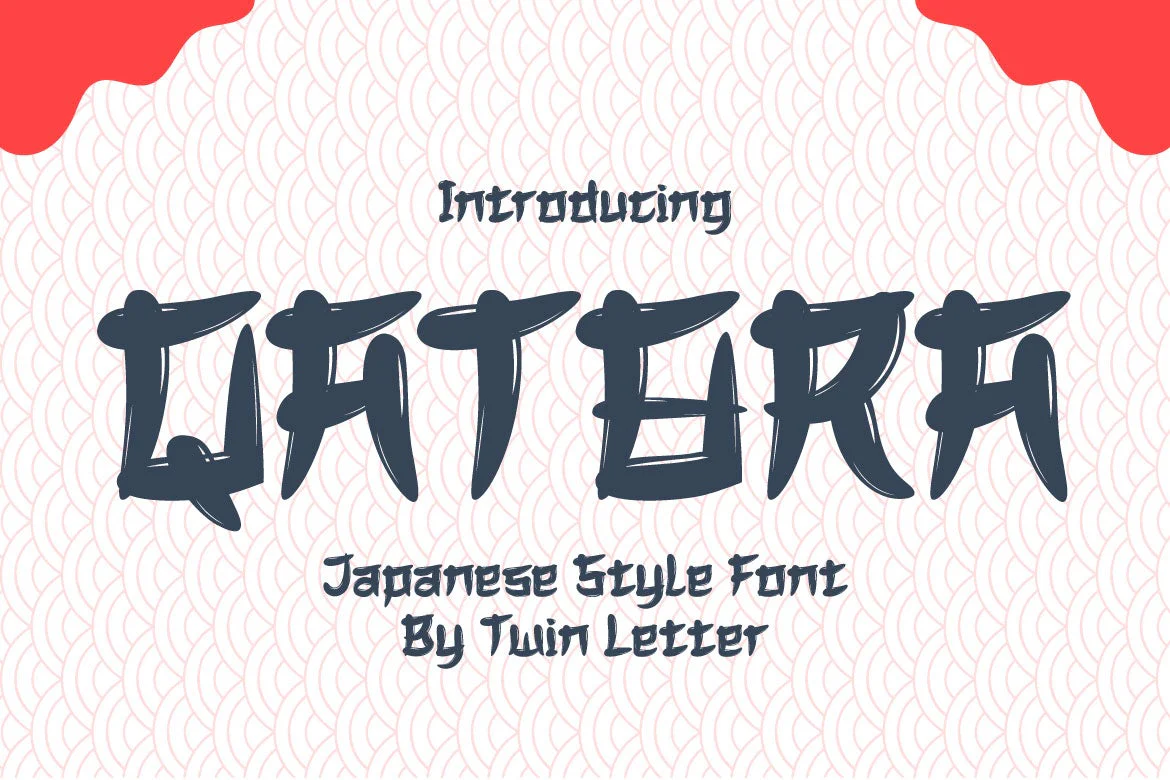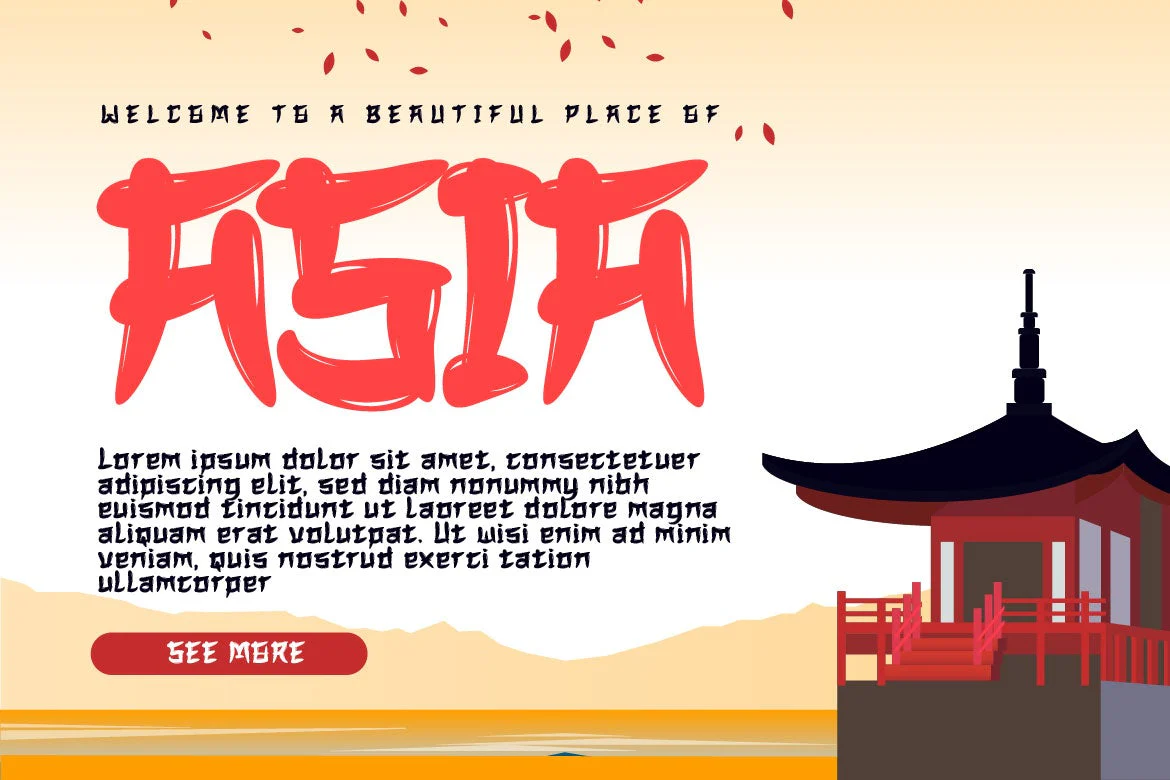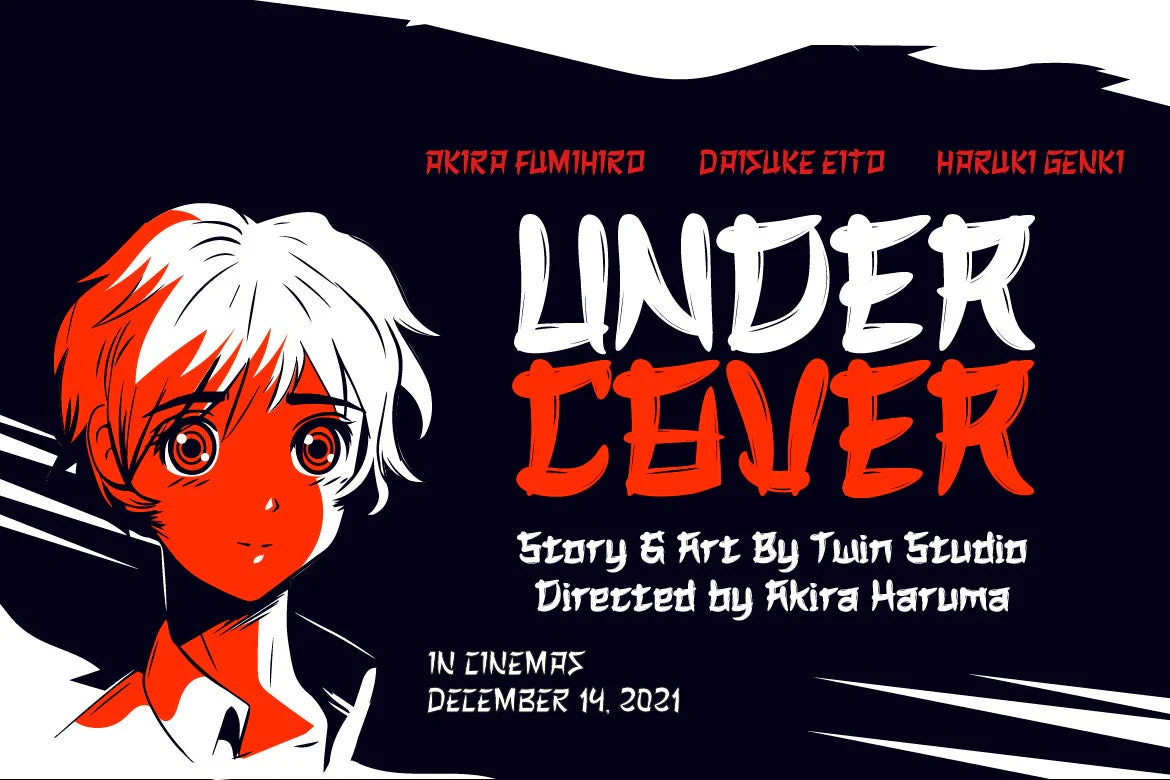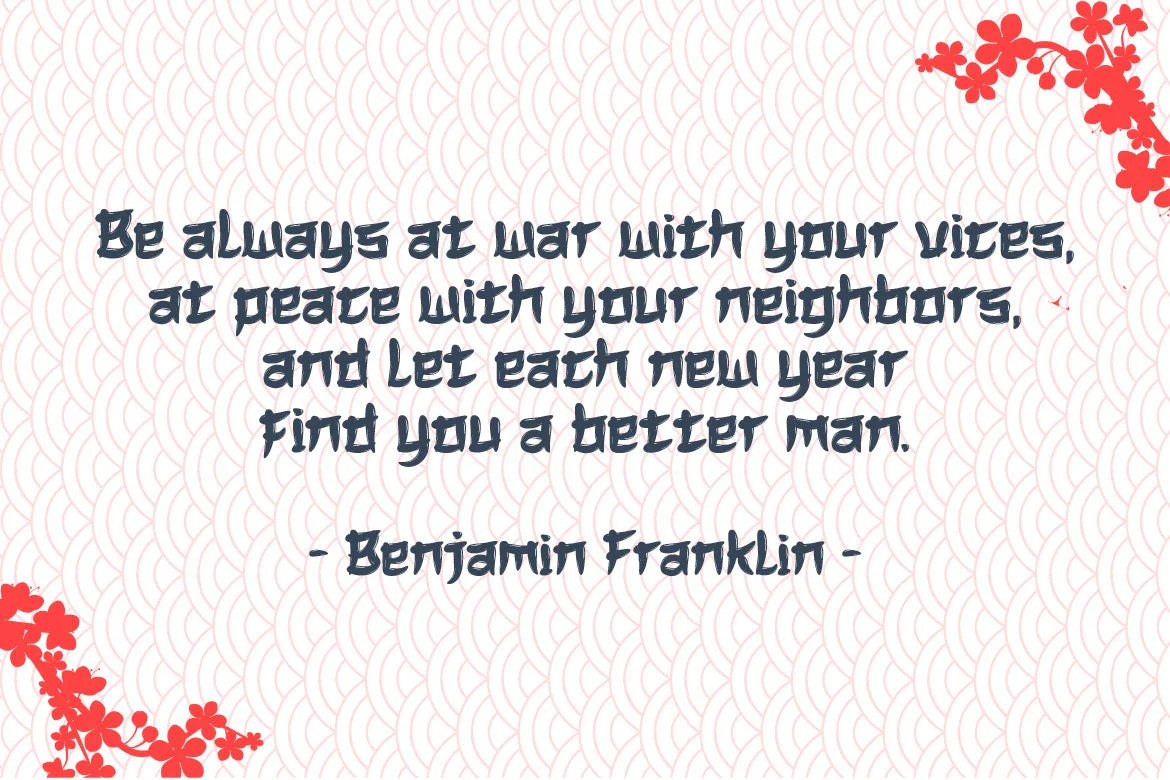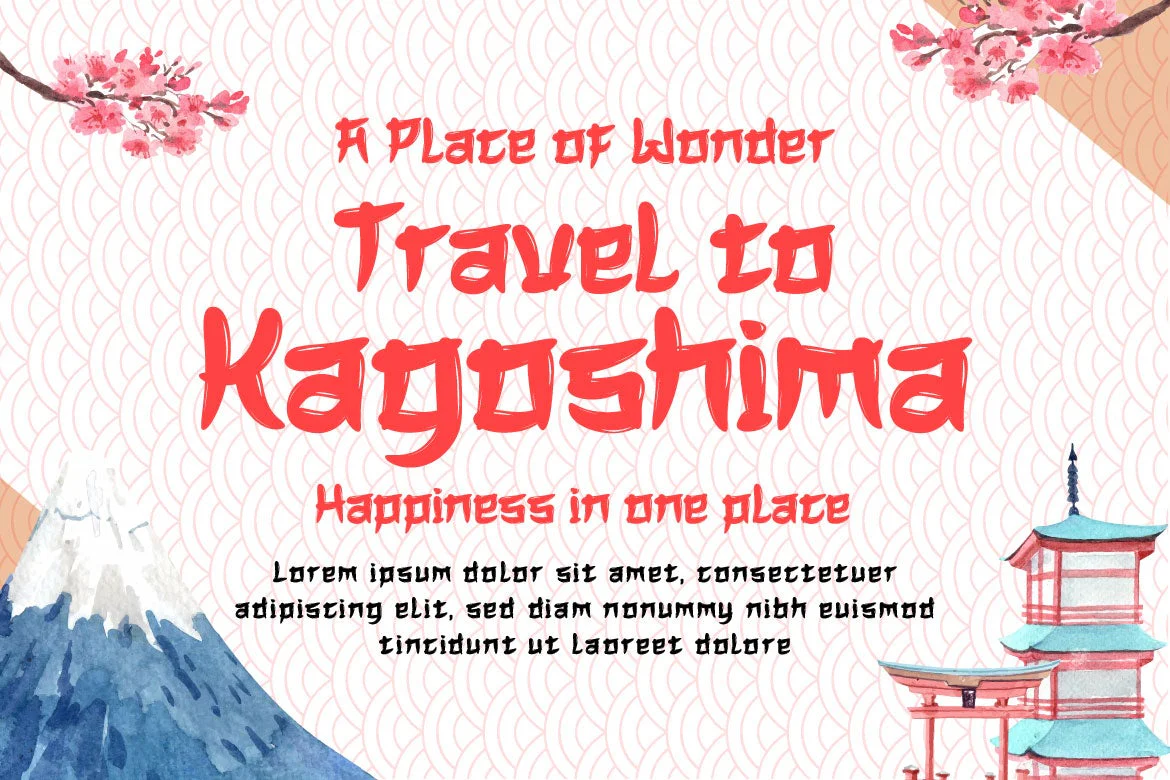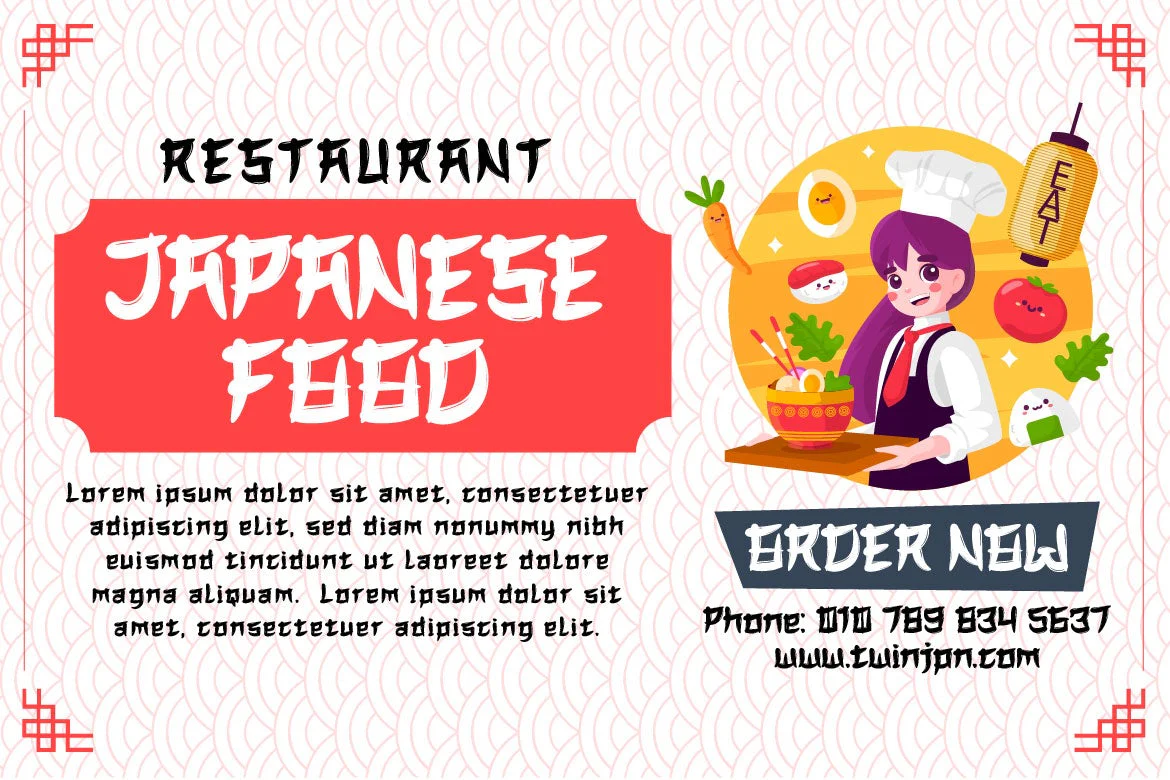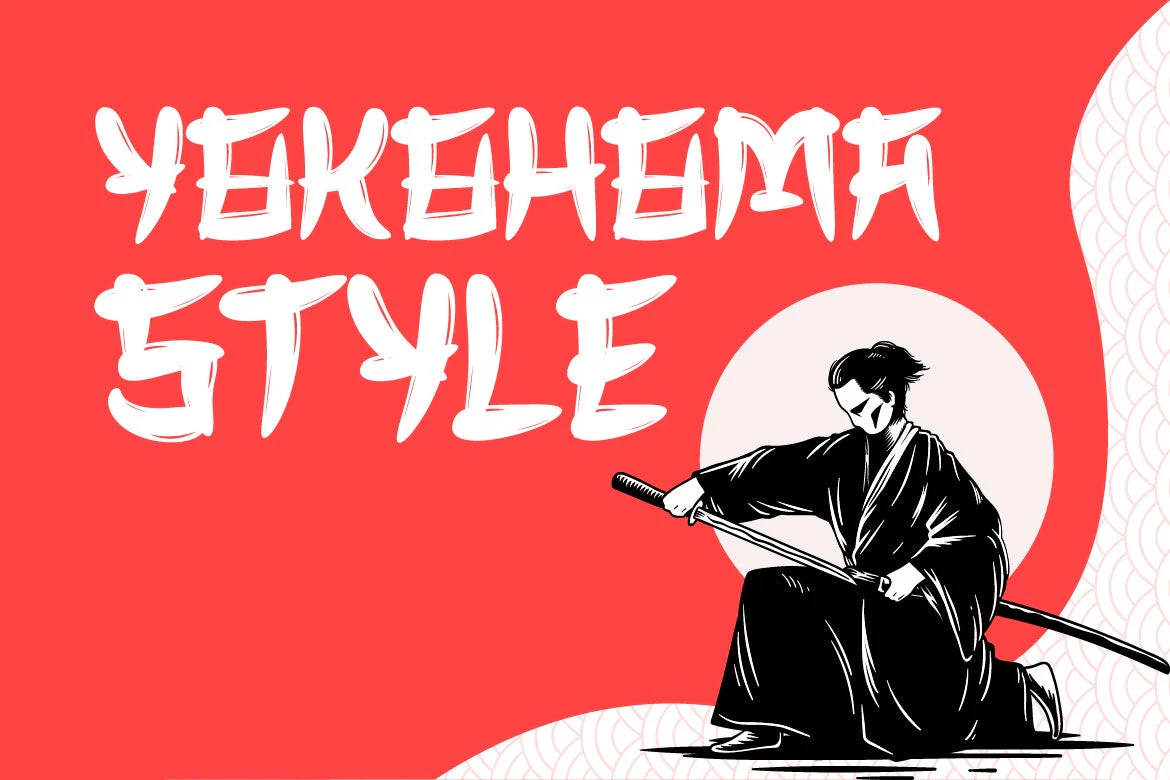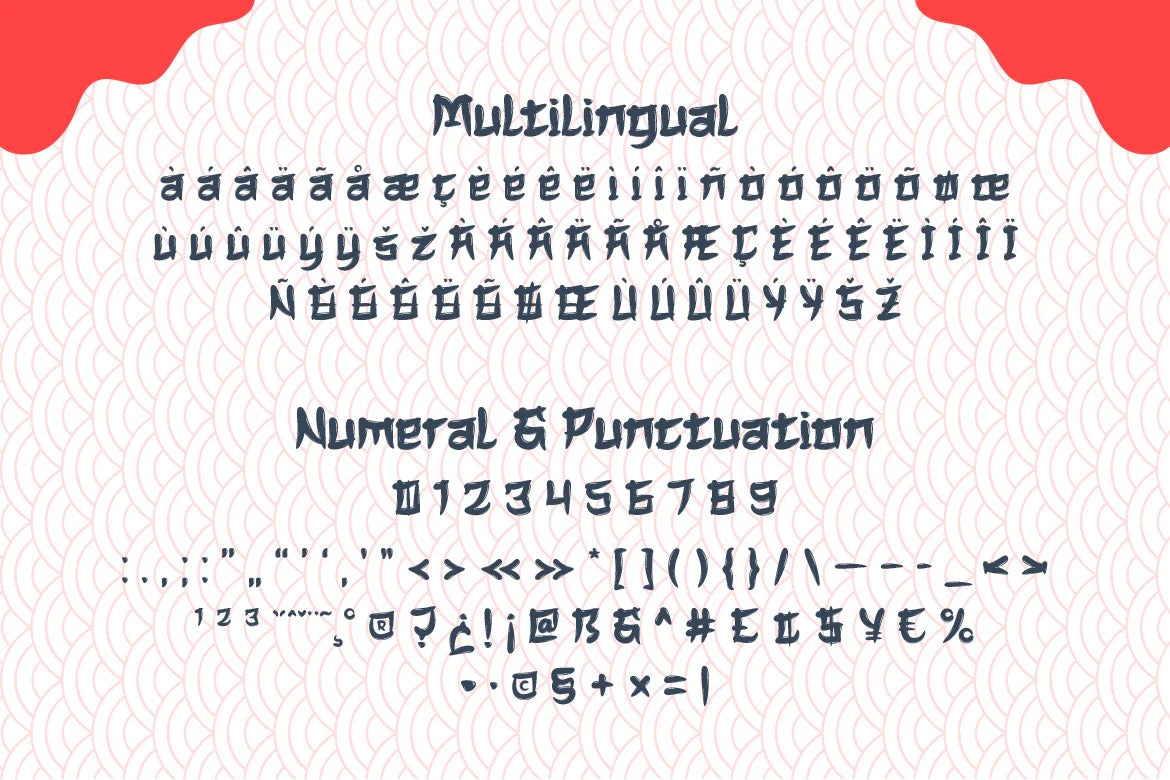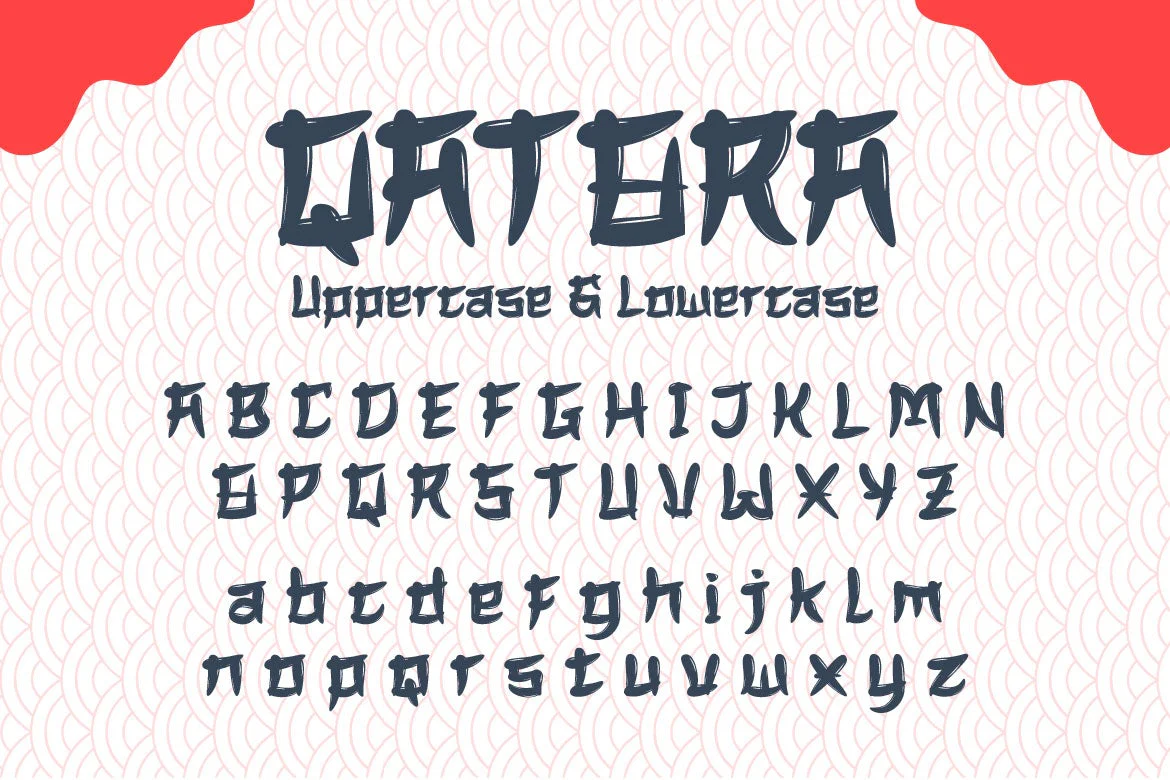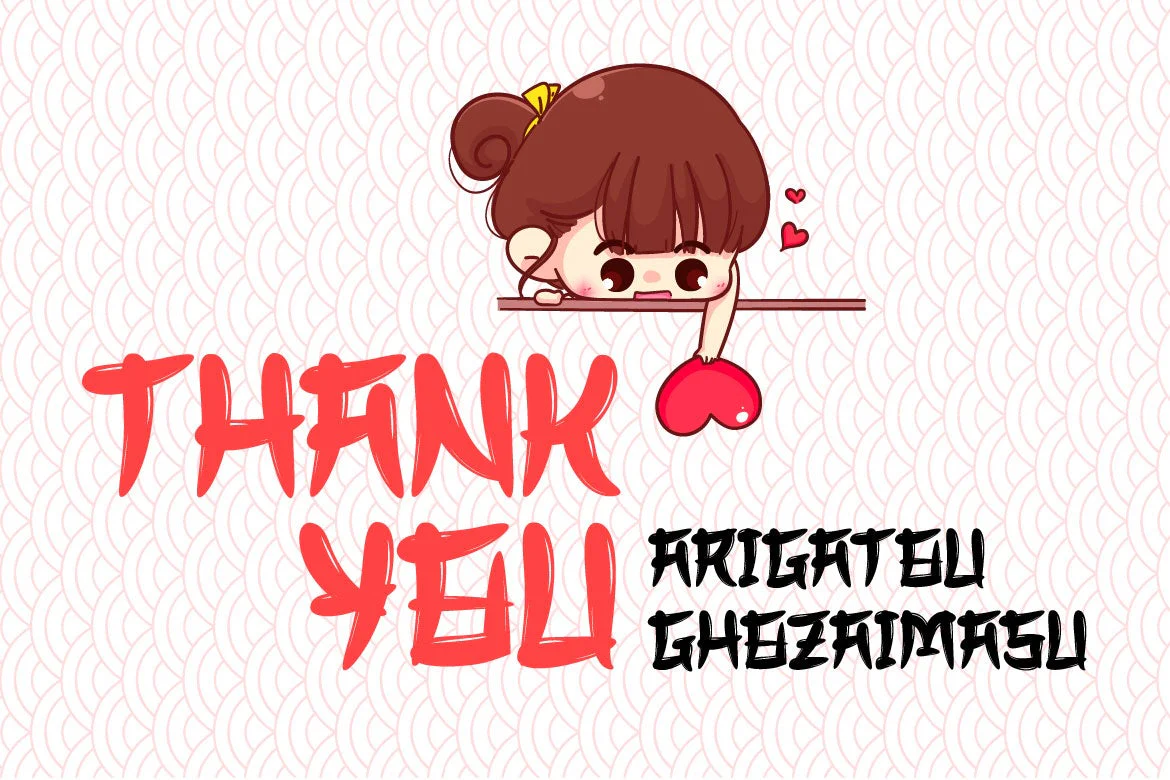
QATORA Faux Japanese Font
QATORA is a display font with a Japanese motif. Each letter in this font is distinct, resulting in harmony and beauty when composed into a word or sentence.
When you use this font, your entire project will be beautiful and perfect; your audience will be fascinated; your project will be distinctive; and, of course, you will win the audienceās heart with a unique project appearance thanks to this font. Logotypes, food banners, branding, brochure, posters, movie titles, book titles, quotes, and more may all benefit from this font.
Of course, using this font in your various design projects will make them excellent and outstanding; many viewers are drawn to the striking and unusual graphic display.
Start utilizing this typeface in your projects to make them stand out.
QATORA is a display font with a Japanese motif. Each letter in this font is distinct, resulting in harmony and beauty when composed into a word or sentence.
When you use this font, your entire project will be beautiful and perfect; your audience will be fascinated; your project will be distinctive; and, of course, you will win the audienceās heart with a unique project appearance thanks to this font. Logotypes, food banners, branding, brochure, posters, movie titles, book titles, quotes, and more may all benefit from this font.
Of course, using this font in your various design projects will make them excellent and outstanding; many viewers are drawn to the striking and unusual graphic display.
Start utilizing this typeface in your projects to make them stand out.